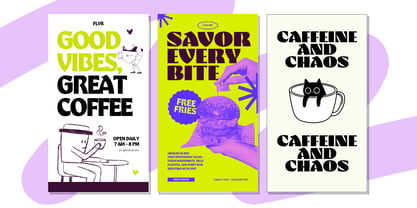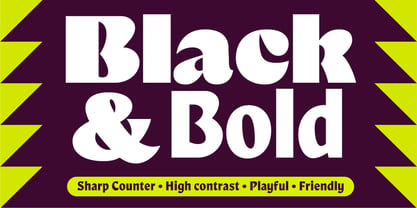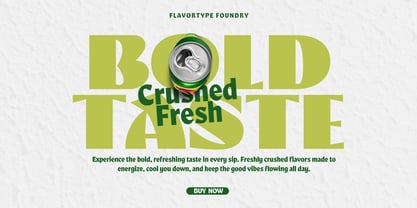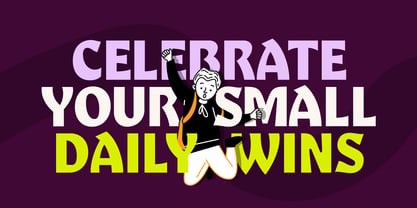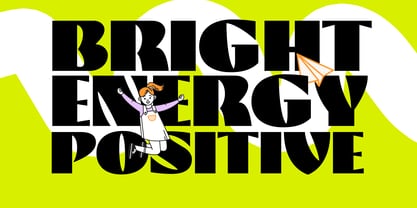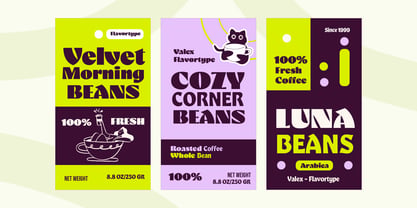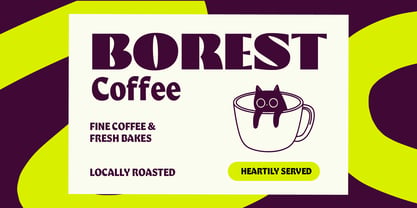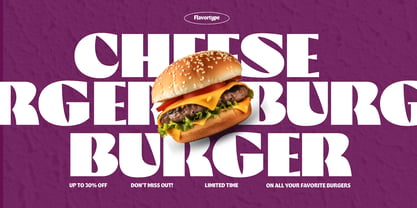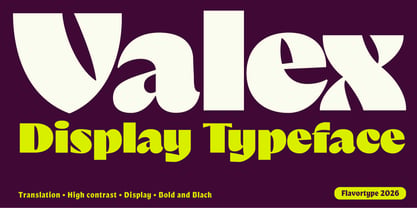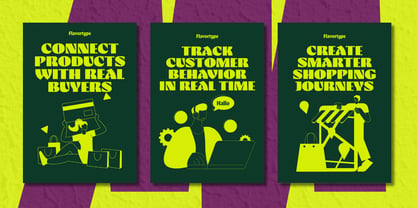
Valex
The Valex Font Family was designed by Ilham Herry, Adam Fathoni Haris, panji nugroho, Rizky Setyaludin and published by Flavortype. Valex contains 2 styles and family package options. More about this family
Playful, retro display typeface with strong personality.
Here’s Valex, the contrasting display typeface that is here to make people notice you! The fonts’ unique characteristics like rounded shapes with sharp counters and chunky outlines allow Valex to be modern but at the same time nostalgic and full of spirit. It was created as an expressive tool for creating powerful design projects like branding, packaging, poster designs, social media graphics, editorial works, and more.
The font family includes 2 weight options: Valex Black and Valex Bold, which will help you build hierarchy within the project without compromising on the fonts’ expressive nature.
Use Valex when you want your coffee brand, kids merchandise, food packaging to be noticed.